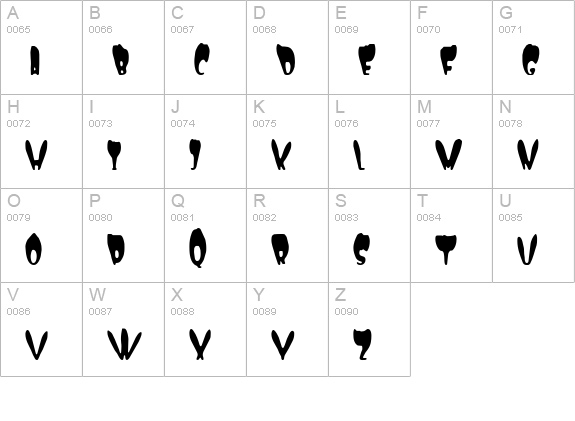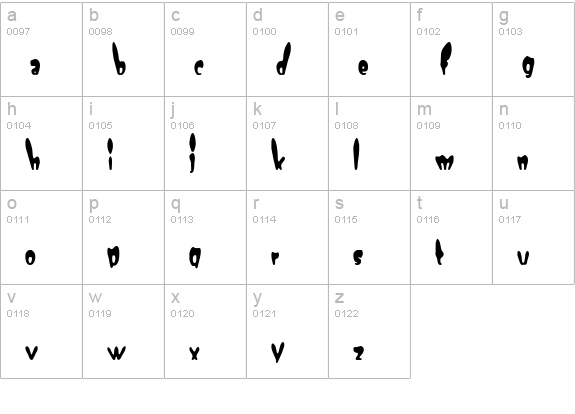
Numskull BRK Font Details
Numskull BRK font is a quirky and playful typeface that adds a touch of whimsy to any design project. With its irregular shapes and uneven strokes, this font is sure to catch the eye and create a fun and lighthearted atmosphere. Whether you're working on a poster, logo, or website, Numskull BRK font will bring a unique charm to your work. The best part? Numskull BRK font is available for free download at FontsMarket.com. So go ahead and add a touch of personality to your designs with this delightful font today!